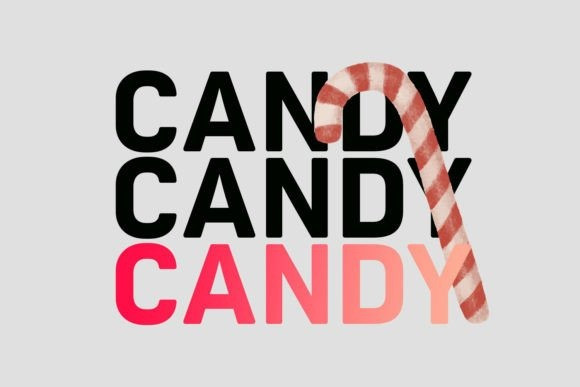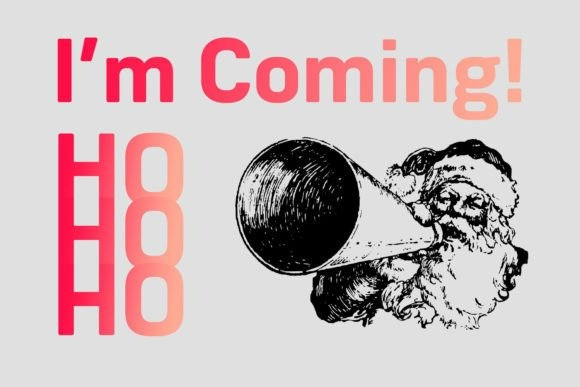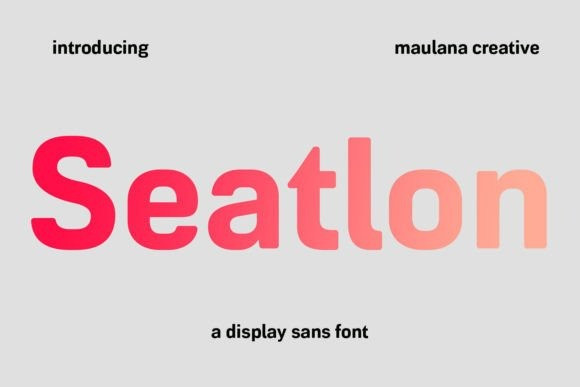
Seatlon Font
Seatlon Sans Serif Font is a square-ish sans serif display font. Whether you’re using it for crafts, digital design, presentations, or posters, this font has the potential to become your favorite go-to font, no matter the occasion!